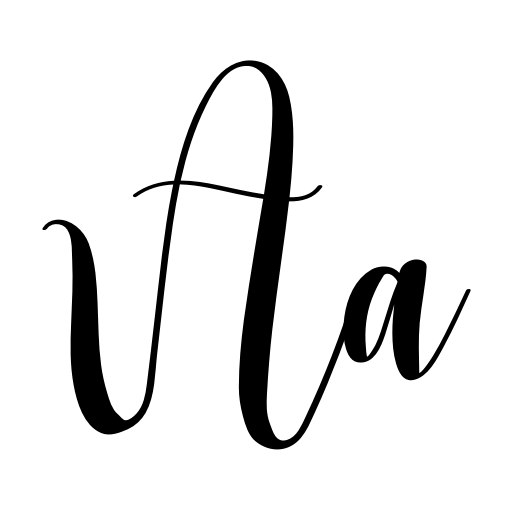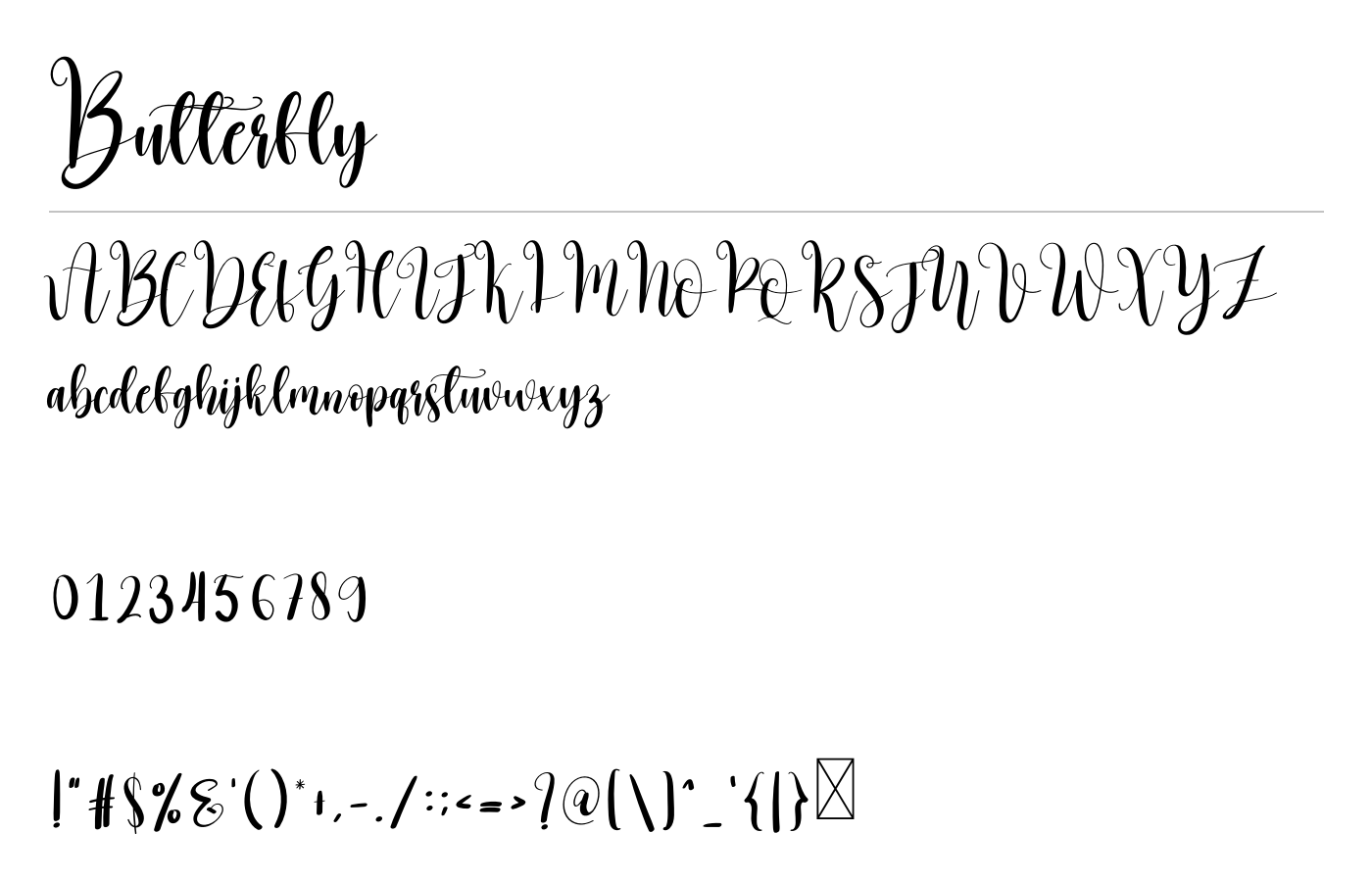
Butterfly Font is an elegant, handwritten script font with flowing, decorative letterforms that feature smooth, varied strokes and delicate swashes. It conveys a romantic and whimsical feel, making it ideal for wedding invitations, branding, packaging, and feminine or creative designs where a graceful, personal touch is desired. The font's readable yet artistic style works beautifully for headlines and logos that need a unique, stylish flair.
Butterfly Font
About Butterfly Font